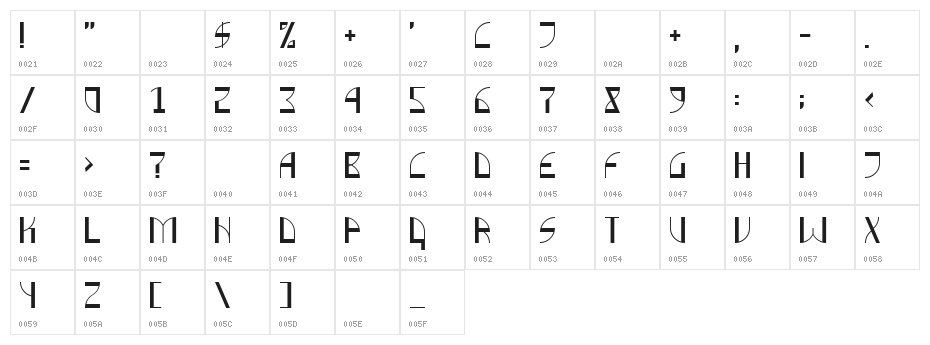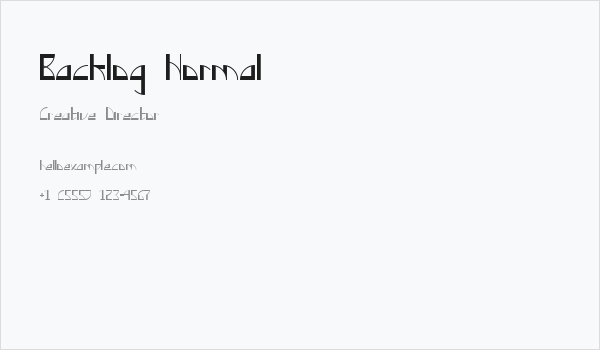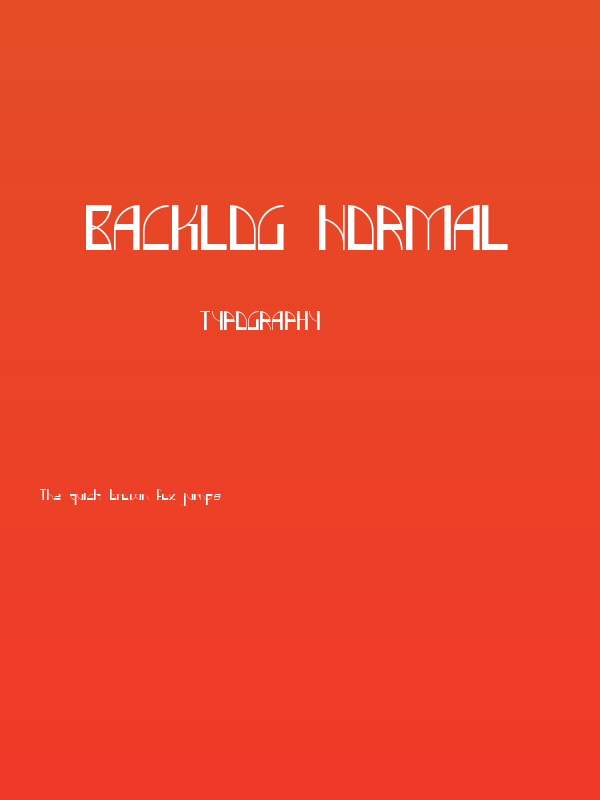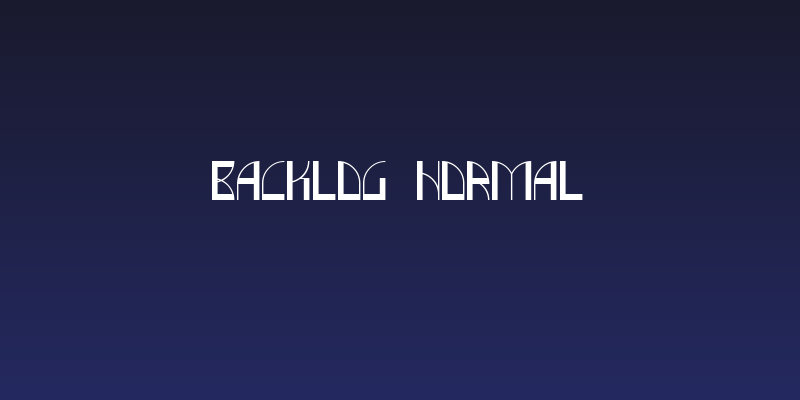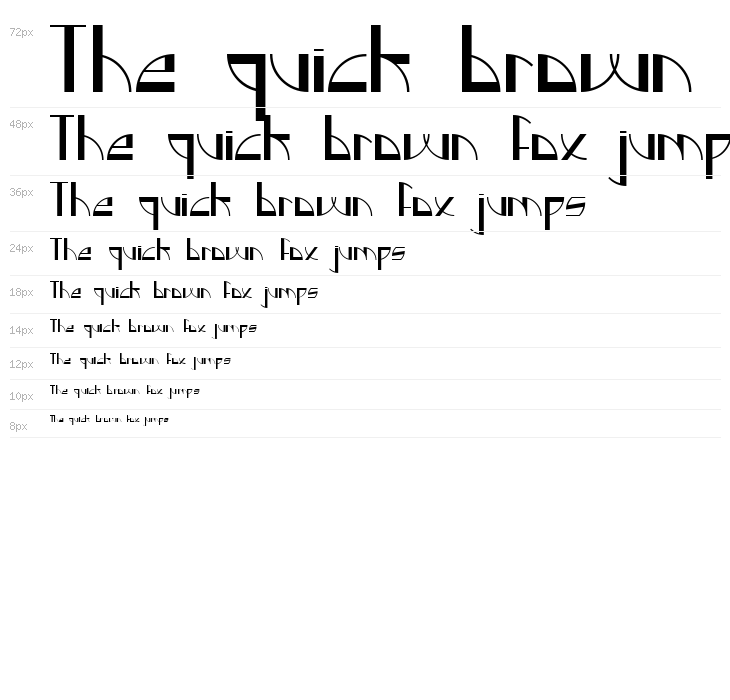
Backlog Normal Font
Backlog Normal Description
This font features a unique and modern design with geometric elements and sharp angles. The uppercase letters are characterized by their bold, structured forms, while the lowercase letters maintain a consistent style with slightly softer curves. The numerals are distinct and align well with the overall aesthetic, offering a futuristic and technical feel. Special characters are designed to complement the letterforms, maintaining the font's cohesive look. The font's style is ideal for projects that require a contemporary and edgy appearance.
| Proposed Projects | Ideal for tech branding, modern posters, and digital interfaces. |